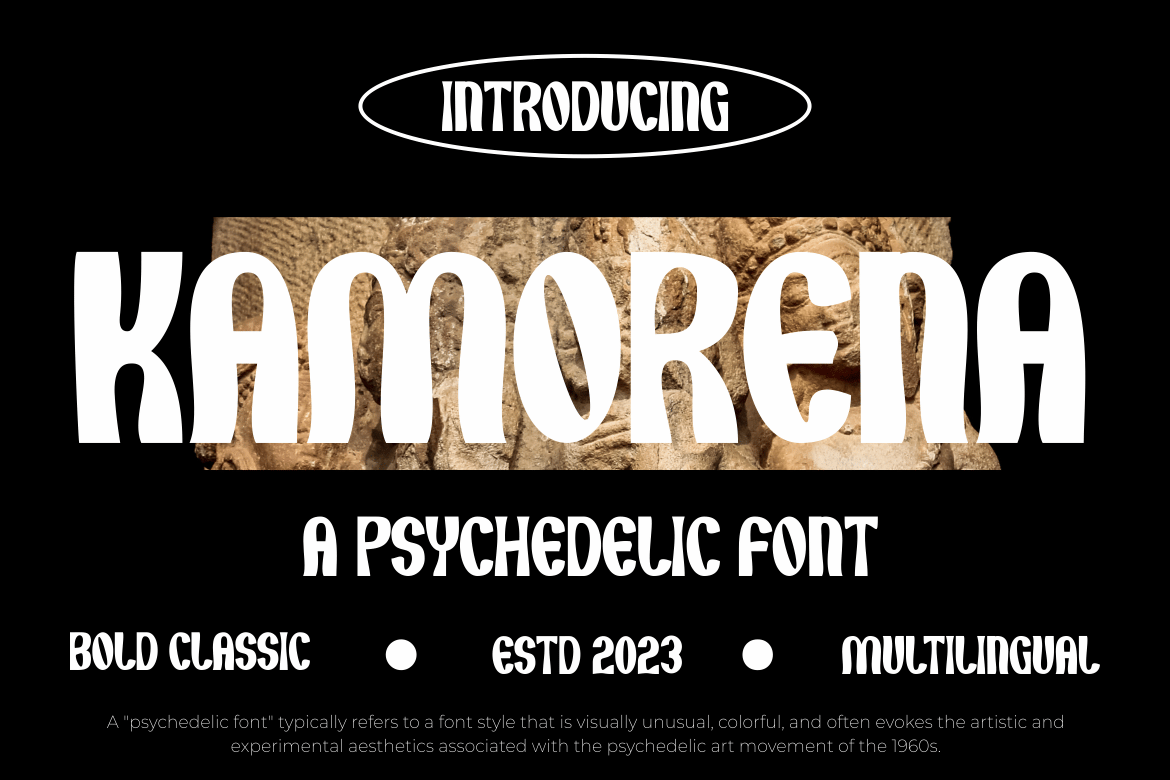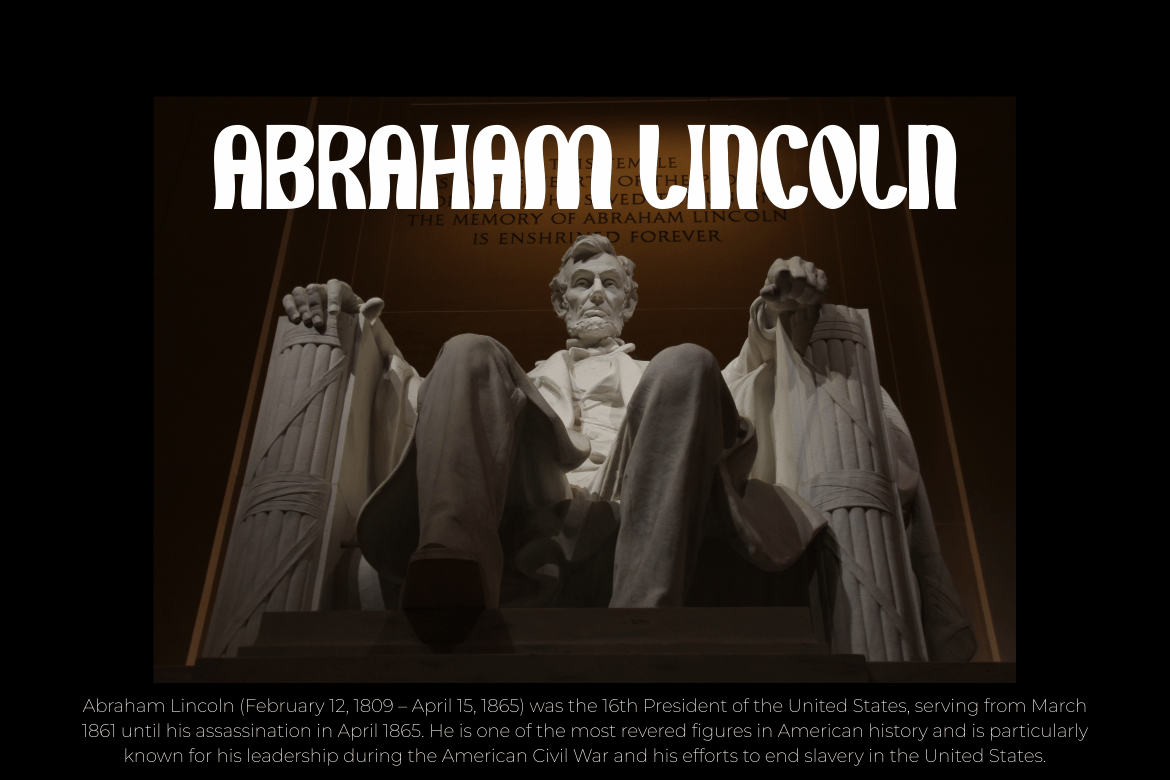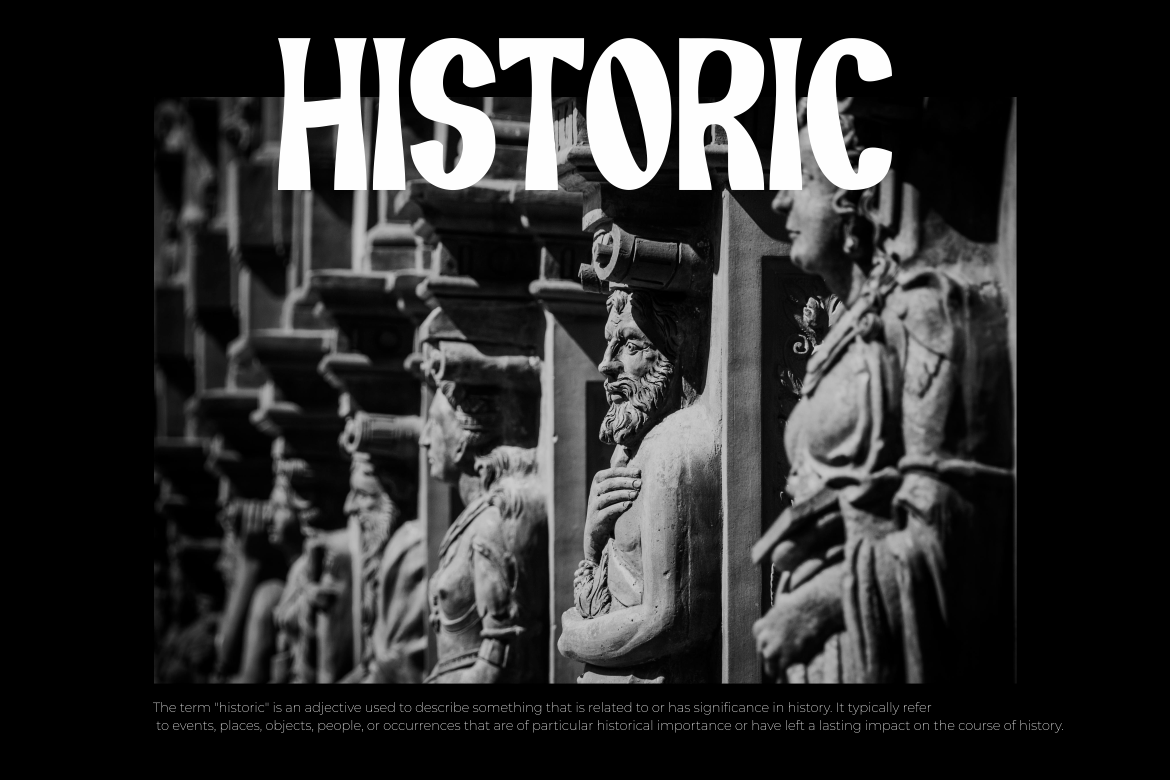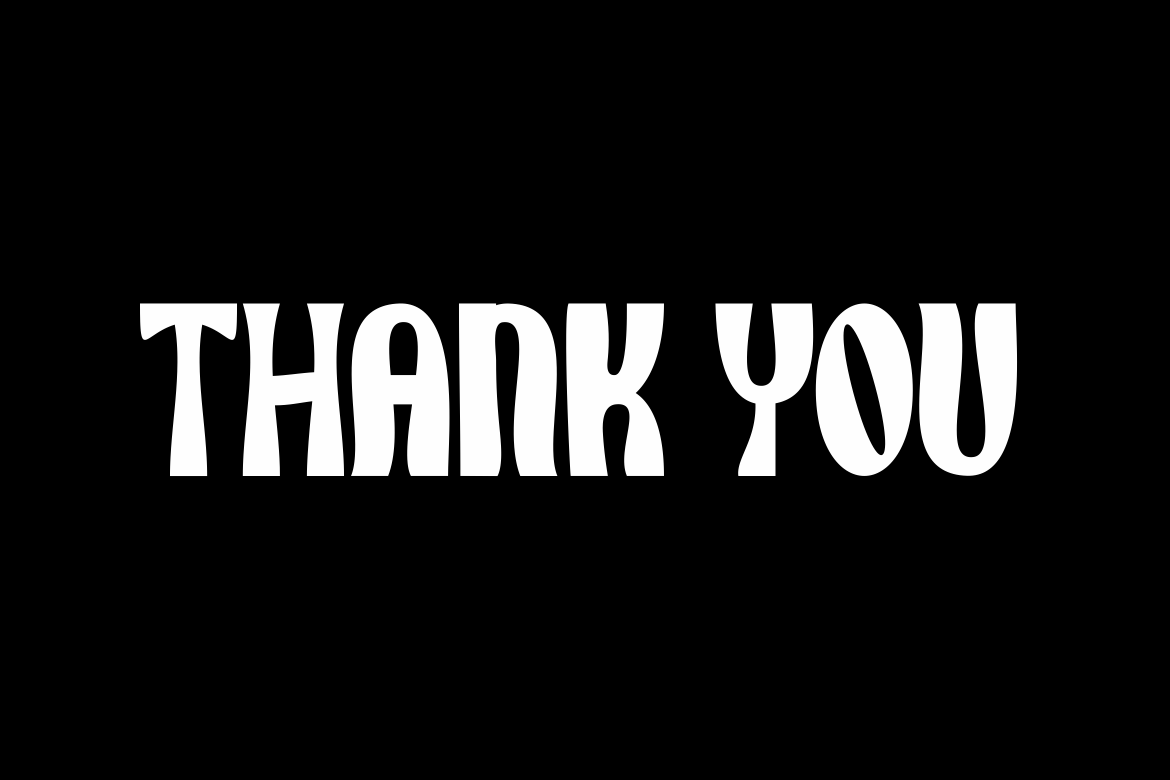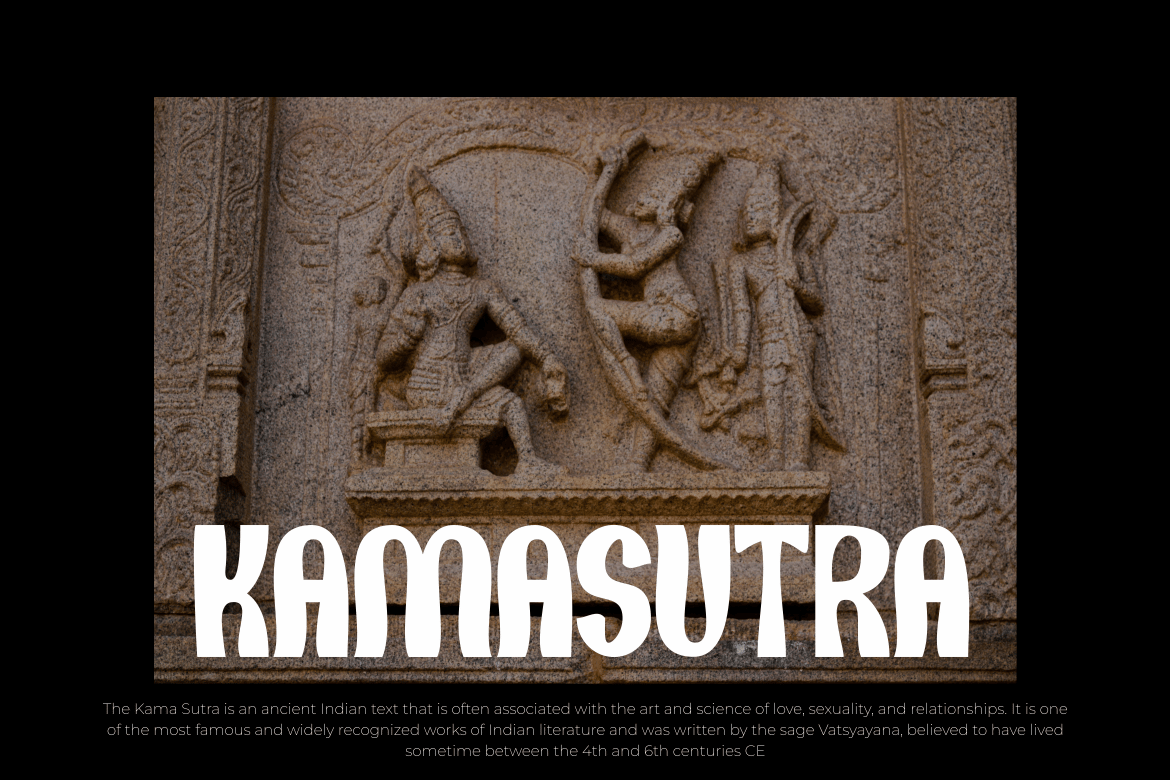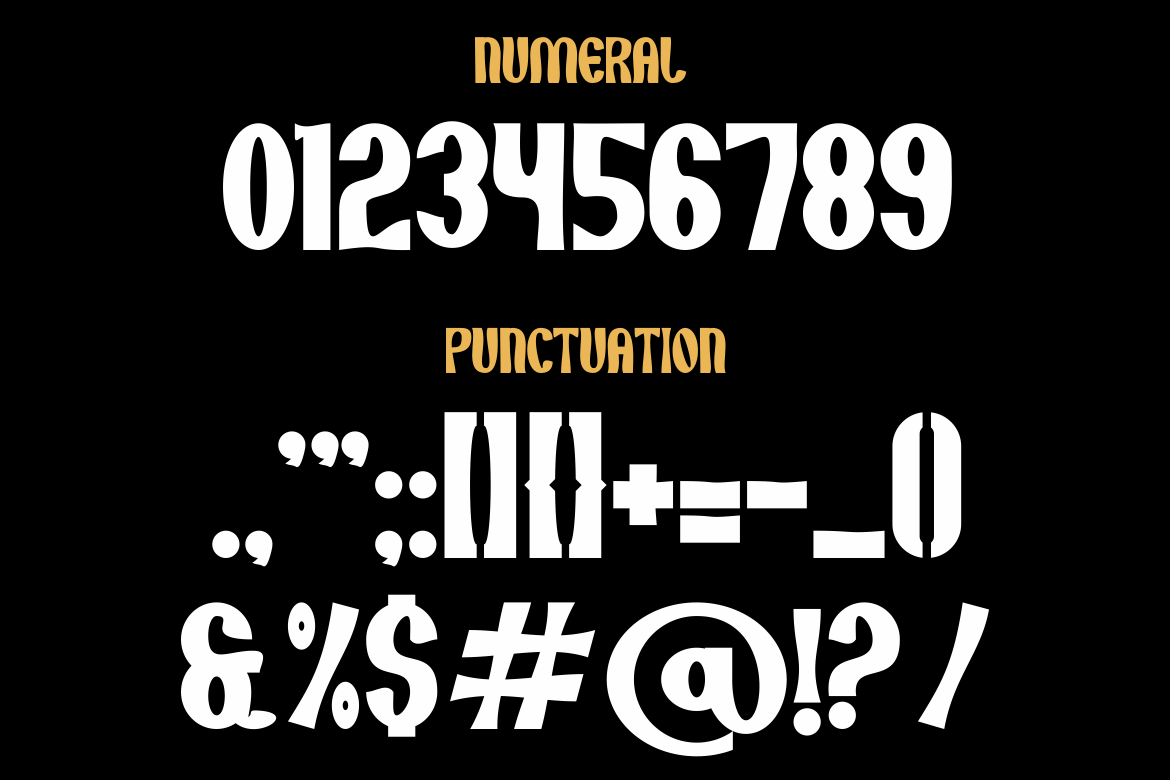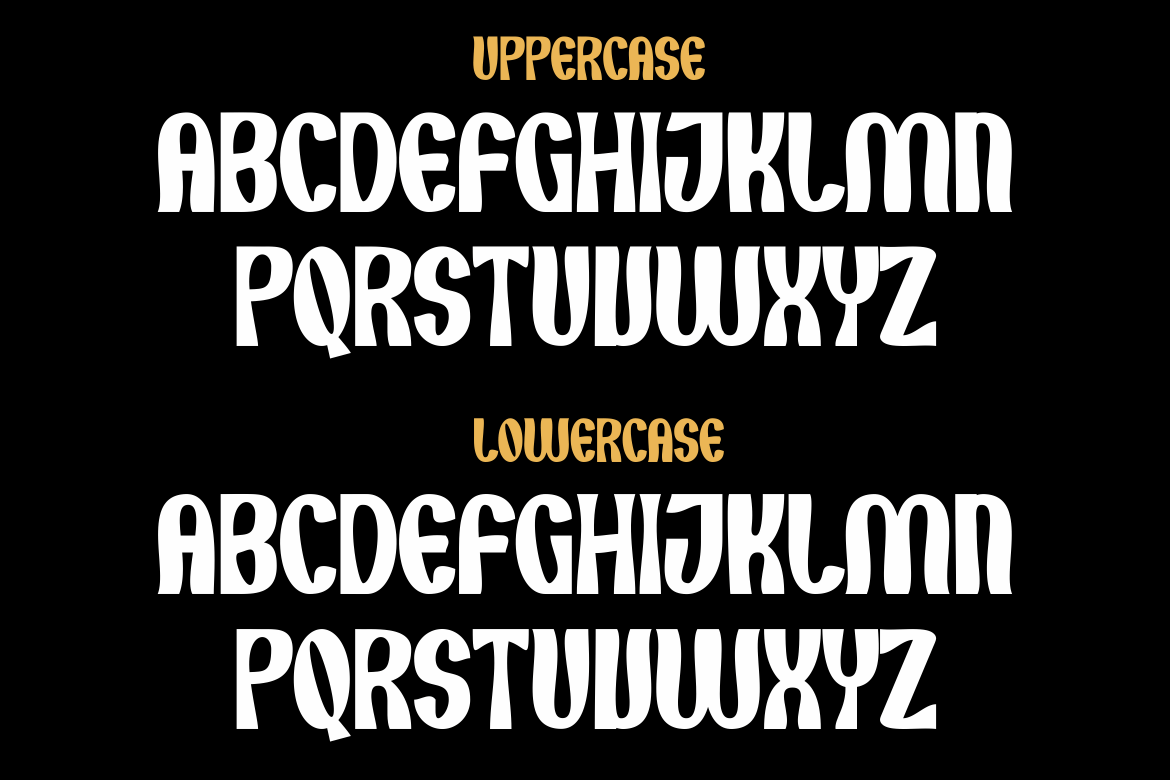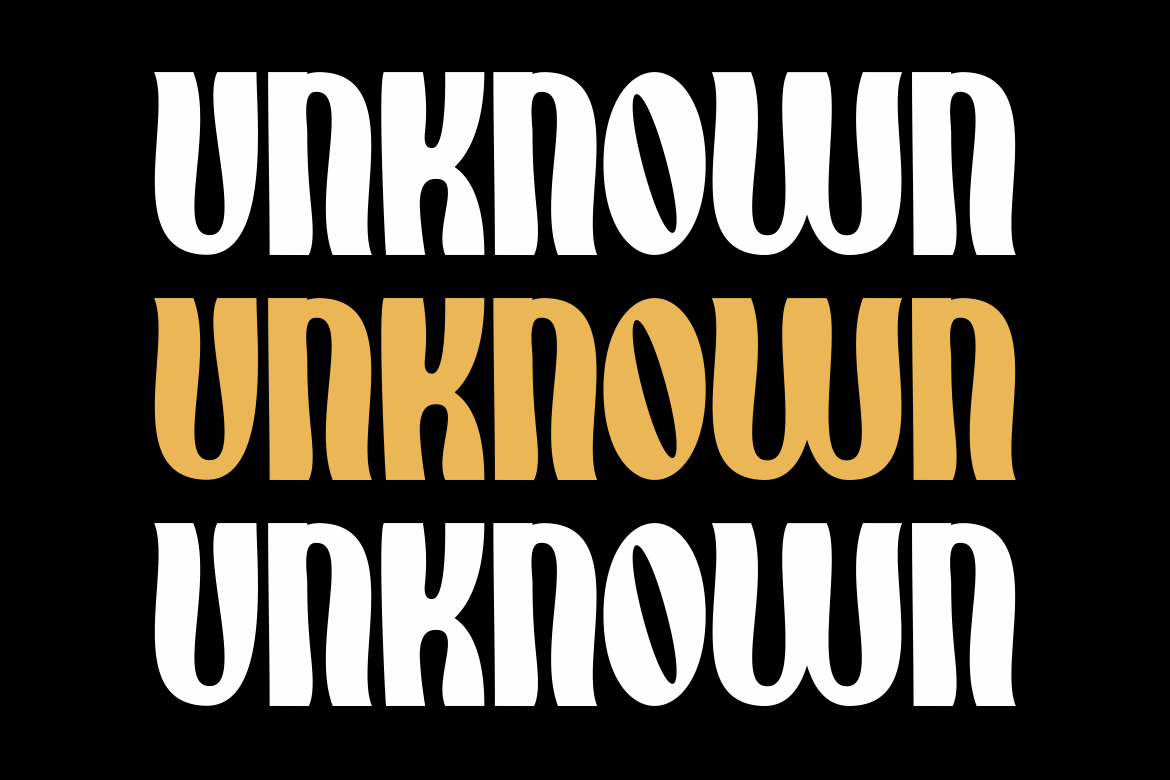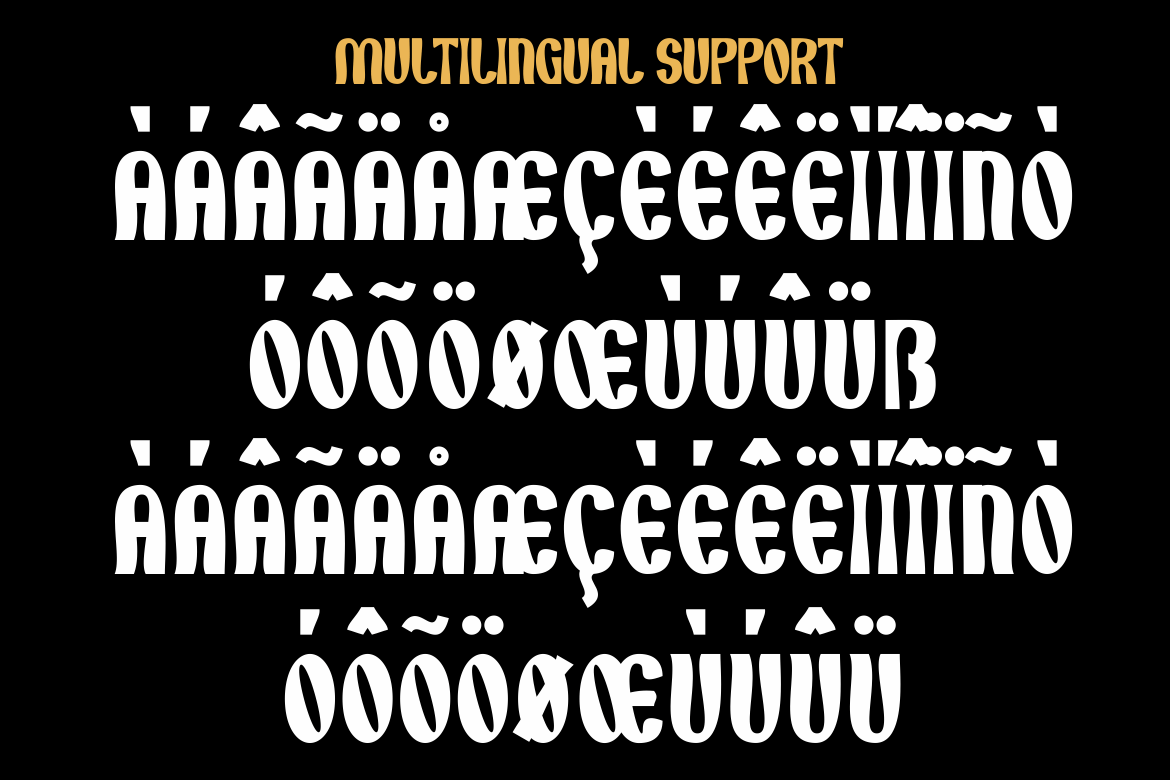
Kamorena – Psychedelic Font
Introducing our new product Kamorena – Psychedelic Font
This font possesses energetic and abstract characteristics with a contemporary design perspective, offering a visually captivating experience, making it a valuable tool for designers looking to infuse their projects with a sense of creative adventure and experimentation. This font is typically used in graphic design, posters, art, and promotional materials seeking to create a striking, experimental, or unique visual appearance.